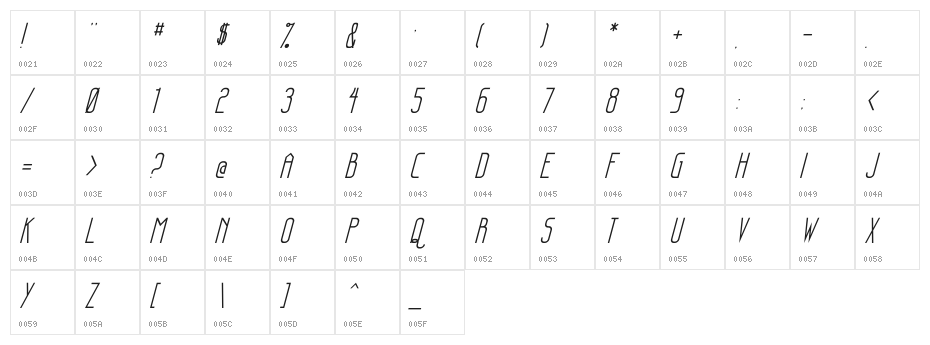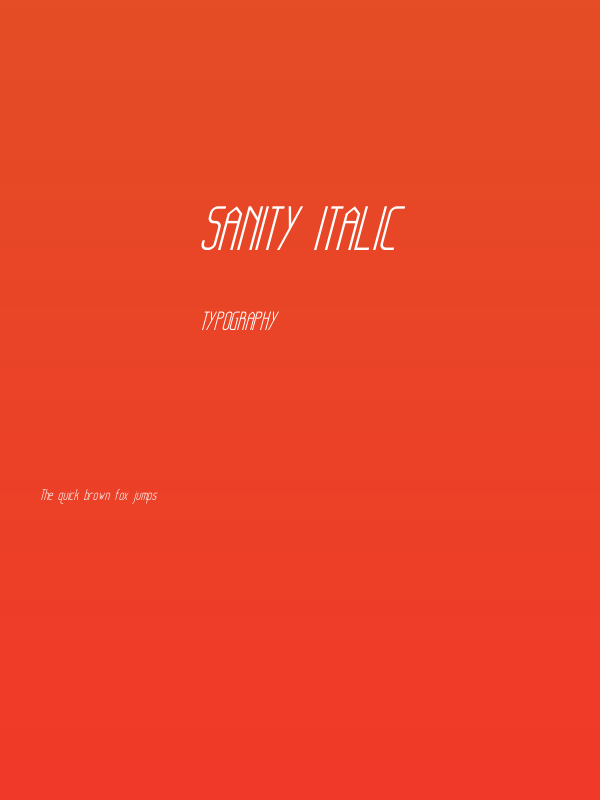
Sanity Italic Font
Sanity Italic Description
This font features a sleek, modern design with a distinct italic slant, giving it a dynamic and forward-moving appearance. The characters are elongated and slightly condensed, creating a sense of elegance and sophistication. The strokes are consistent in thickness, providing a uniform look across all characters. The uppercase letters are tall and commanding, while the lowercase letters maintain a balanced proportion. Numbers and special characters are designed with the same attention to detail, ensuring readability and style. This font's clean lines and contemporary feel make it suitable for a variety of design applications.
| Use Case | Headlines, Logos, Editorial Design |
| Proposed Projects | Ideal for branding, editorial design, advertising, and digital media projects that require a modern and stylish touch. |